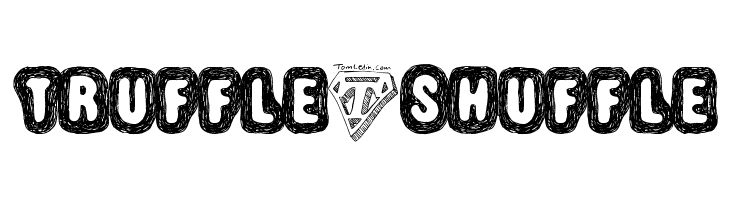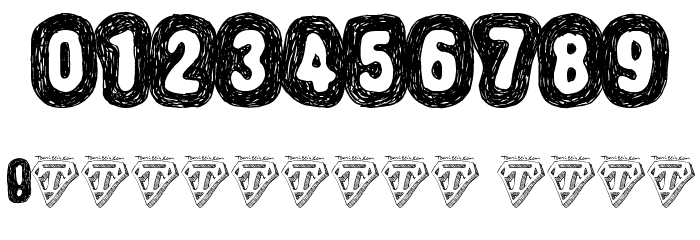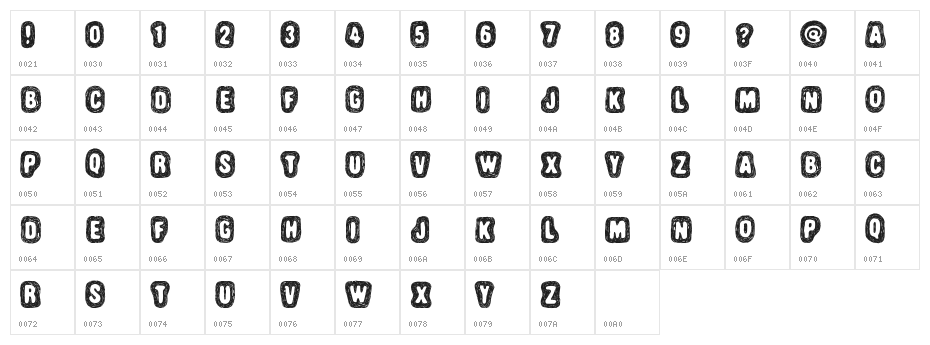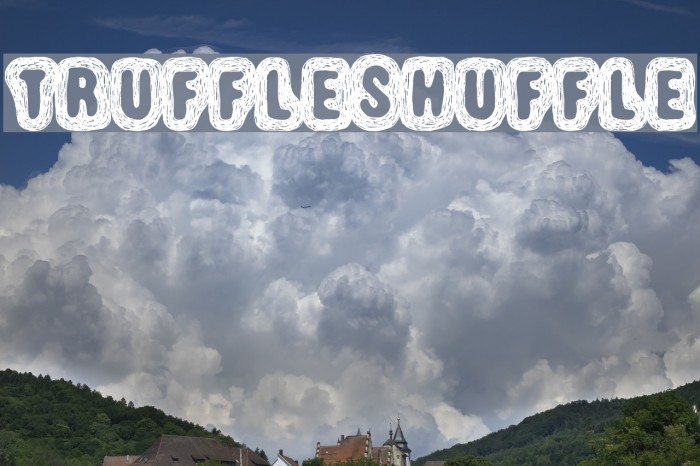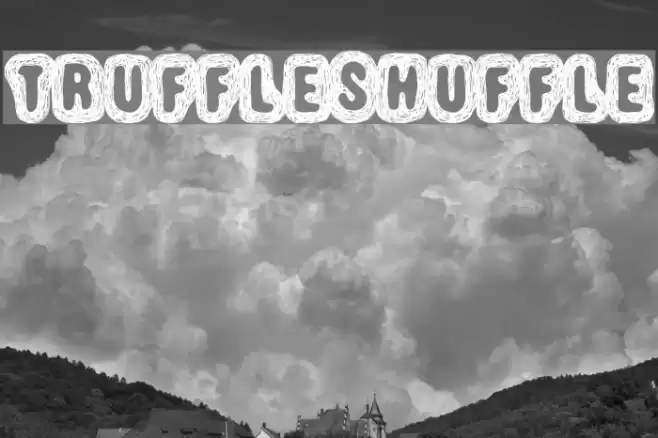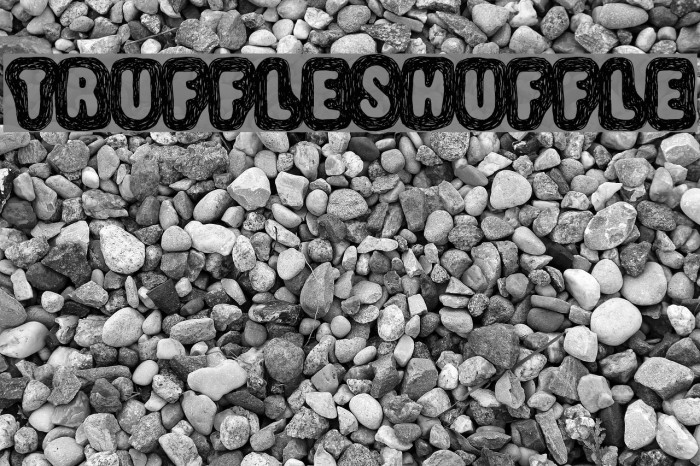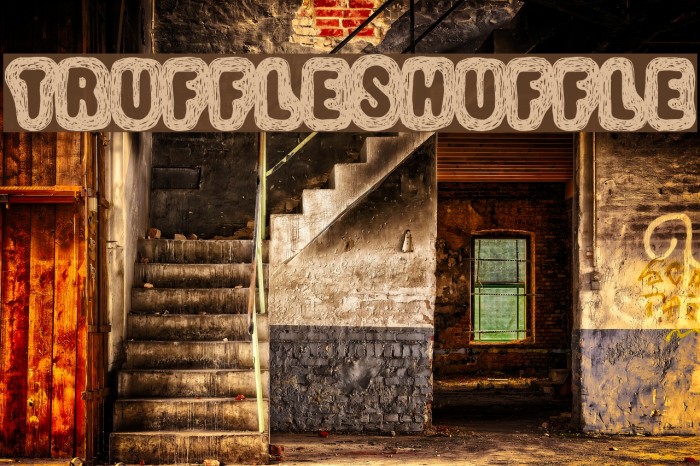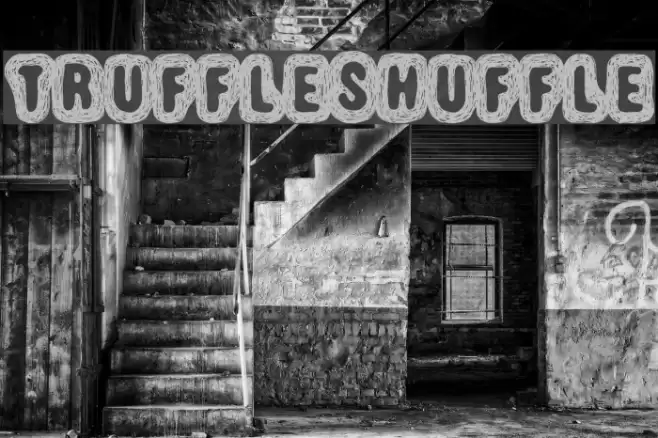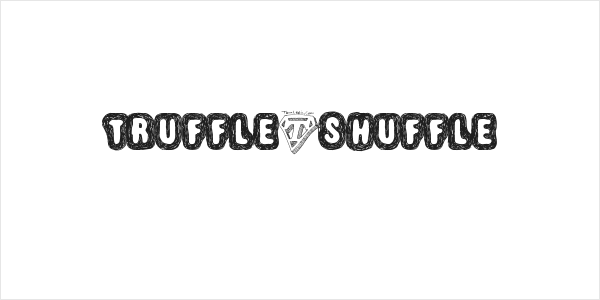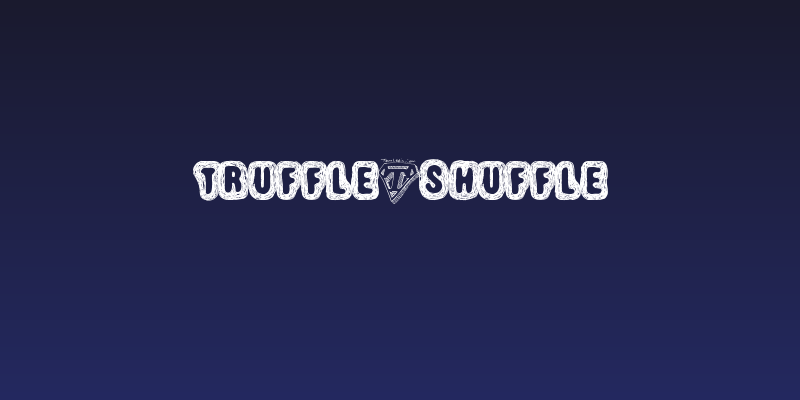
Truffle-Shuffle Font
Truffle-Shuffle Description
This playful and bold font features a hand-drawn, doodle-like style with thick, uneven strokes that create a sense of fun and whimsy. Each character is enclosed in a rounded, irregular outline, giving it a unique, cartoonish appearance. The letters are uppercase, with a consistent height and width, contributing to a uniform look despite the irregularities in the stroke patterns. The numbers and special characters follow the same design principles, maintaining the cohesive style of the font. This font's distinct, artistic flair makes it ideal for creative and informal projects.
| Overall Style | Playful, Artistic, Cartoonish |
| Proposed Projects | Ideal for children's books, comic strips, playful branding, party invitations, and creative posters. |